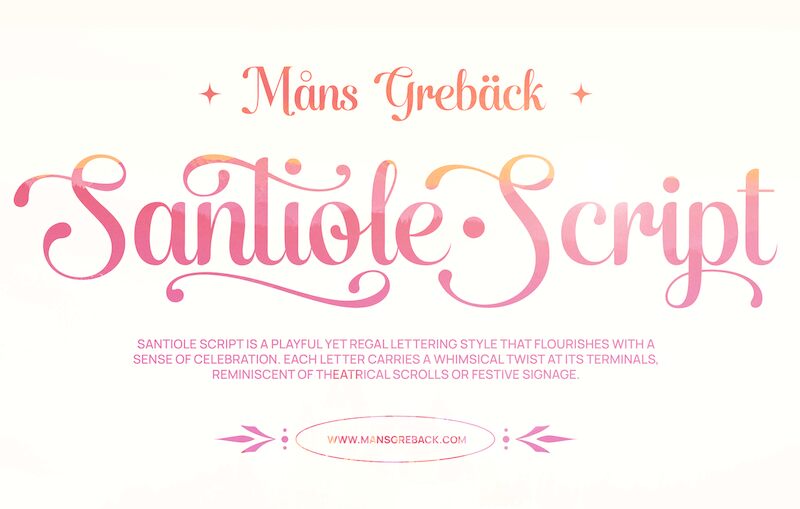
Santiole Script font by Mans Greback is a free calligraphic display font. It stands out with whimsical terminal twists and plush, inky strokes that swell and taper like a celebratory ribbon. The letters lock together with a smooth, theatrical flow, giving words a festive lilt without losing readability.
Using Santiole Script, headlines snap to attention on wedding invitations, event branding, boutique logos, bakery packaging, seasonal campaigns, and greeting cards. The lively contrast adds sparkle at larger sizes, while the gentle rhythm keeps lines cohesive. For balance, pair this free font with a light, unadorned sans and keep ample letter spacing to let those flourishes breathe.
Use underscore _ to make a swash under any word.
Example: Rose_bud
Use multiple underscores to make different swashes.
Example: Super______man